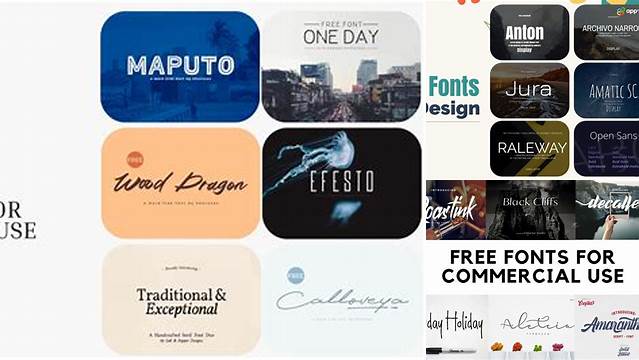
Free Commercial Fonts: Top Picks For Your Projects
Hey guys! Finding the perfect font can be a game-changer for any project, whether it's branding, web design, or print materials. But let's be real, high-quality fonts can be expensive! That's why I've put together a list of amazing free commercial fonts you can use without breaking the bank. These fonts are not only free but also come with licenses that allow you to use them in your commercial projects. Let's dive in and find the perfect typeface for your next venture!
Top Sans-Serif Free Commercial Fonts
Sans-serif fonts are clean, modern, and versatile, making them a popular choice for many projects. Some top free commercial fonts in this category include Roboto, Open Sans, and Lato. Roboto is a classic sans-serif that's highly readable and works well in a variety of applications. Open Sans is another excellent choice, known for its neutral yet friendly appearance. Lato is a slightly warmer sans-serif that adds a touch of personality to your designs. These fonts are all available on Google Fonts and are licensed for commercial use, so you can confidently incorporate them into your projects. When selecting a sans-serif font, consider the overall tone and style you want to convey. A more geometric sans-serif like Montserrat can give a very different impression compared to a humanist sans-serif like Open Sans. Think about where the font will be used—a font that works well for body text might not be the best choice for a headline. Experiment with different weights and styles to find the perfect fit for your specific needs. These free commercial fonts offer a fantastic starting point for any design project, providing flexibility and readability without costing you a penny. Choosing the right sans-serif can significantly enhance the overall aesthetic and impact of your work, so take your time and explore your options.
Best Serif Free Commercial Fonts
Serif fonts have a more traditional and elegant feel, making them great for projects that need a touch of sophistication. Some outstanding free commercial fonts in the serif category include Playfair Display, Merriweather, and Arvo. Playfair Display is a beautiful font that's perfect for headlines and titles. Merriweather is a highly readable serif that works well for body text. Arvo is a slab-serif font that has a strong and distinctive look. Like the sans-serif options, these fonts are also available on Google Fonts with commercial licenses. When using serif fonts, pay attention to the line height and letter spacing to ensure optimal readability. Serif fonts often require a bit more tweaking than sans-serif fonts to look their best, especially in digital applications. Consider the historical context of the font and how it aligns with the overall theme of your project. A classic serif like Garamond might be perfect for a project that evokes a sense of tradition, while a more contemporary serif like Roboto Serif could be a better fit for a modern design. These free commercial fonts can bring a touch of class and sophistication to your designs, making them an excellent choice for projects that need a polished and refined appearance. Don't be afraid to experiment with different combinations and weights to find the perfect serif font that complements your overall design.
Monospace Free Commercial Fonts
Monospace fonts, where each character occupies the same horizontal space, are often used in coding, technical documentation, and retro designs. Some great free commercial fonts in this style include Fira Code, Source Code Pro, and Roboto Mono. Fira Code is particularly popular among developers because it includes ligatures that make code more readable. Source Code Pro, designed by Adobe, is another excellent option known for its clarity and legibility. Roboto Mono provides a clean and modern take on the monospace style. These fonts are all freely available and licensed for commercial use. When choosing a monospace font, legibility is paramount, especially if it will be used for reading code or technical information. Look for fonts with clear distinctions between similar characters like '1', 'l', and 'I'. Consider the overall aesthetic and how it fits with the tone of your project. Monospace fonts can evoke a sense of precision and technical expertise, making them a great choice for certain applications. While they might not be suitable for all design projects, these free commercial fonts can add a unique and distinctive touch when used appropriately. Whether you're creating a coding tutorial, designing a terminal-inspired interface, or simply want to add a retro vibe, monospace fonts offer a versatile and interesting option.
Display Free Commercial Fonts
Display fonts are designed to catch the eye and make a statement, often used for headlines, logos, and posters. Finding good free commercial fonts in this category can be a bit trickier, but there are still some excellent options. Oswald is a popular choice for headlines and banners, with its bold and condensed design. Montserrat is another versatile option that can work well as a display font, especially in its heavier weights. Bebas Neue is a clean and modern sans-serif that's perfect for creating a strong visual impact. When using display fonts, remember that less is often more. These fonts are meant to be used sparingly to draw attention and create emphasis. Pair them with a more neutral font for body text to ensure readability. Consider the overall message and tone you want to convey and choose a display font that aligns with that. A playful and whimsical font might be perfect for a children's book, while a bold and impactful font could be better suited for a marketing campaign. These free commercial fonts offer a great way to add personality and visual interest to your designs without spending a fortune. Experiment with different styles and combinations to find the perfect display font that makes your project stand out.
Script & Handwritten Free Commercial Fonts
Script and handwritten fonts can add a personal and artistic touch to your projects, but finding free commercial fonts that are both high-quality and legible can be challenging. Some options to explore include Great Vibes, Dancing Script, and Permanent Marker. Great Vibes is an elegant script font that's perfect for invitations and special occasions. Dancing Script is a more casual and playful option that adds a touch of personality. Permanent Marker mimics the look of a handwritten marker, giving your designs a raw and authentic feel. When using script and handwritten fonts, readability is key. Avoid using them for large blocks of text, as they can be difficult to read. Instead, use them sparingly for headings, quotes, and other short pieces of text. Consider the overall tone and style of your project and choose a font that aligns with that. A formal script font might be perfect for a wedding invitation, while a more casual handwritten font could be better suited for a blog post. These free commercial fonts offer a great way to add a personal and artistic touch to your designs, making them feel more unique and engaging. Be sure to test them out in different sizes and contexts to ensure they remain legible and visually appealing.
Tips for Choosing the Right Free Commercial Font
Choosing the right free commercial font involves more than just picking one that looks nice. Consider the purpose of your project, your target audience, and the overall tone you want to convey. Think about readability, especially for body text, and ensure the font works well in different sizes and formats. Also, pay attention to the font's personality and how it aligns with your brand or message. Don't be afraid to experiment with different fonts and combinations to find the perfect fit. It can also be helpful to create a mood board or style guide to ensure consistency across your design. Additionally, always test the font on different devices and browsers to ensure it renders correctly. A font that looks great on your computer might not look the same on a mobile device or in a different browser. These free commercial fonts are valuable assets, but their effectiveness depends on how well they align with your project's goals and design principles. By considering these factors, you can make informed decisions and select fonts that enhance the overall impact and readability of your work. Remember, the right font can elevate your design and make it more engaging and effective.
Advanced Tips and Tricks for Working with Free Commercial Fonts
Once you've mastered the basics of using free commercial fonts, you can explore some advanced tips and tricks to elevate your designs even further. Experiment with different font weights and styles to create visual hierarchy and emphasis. Use kerning and tracking to fine-tune the spacing between letters and create a more polished look. Use OpenType features like ligatures and stylistic alternates to add character and personality to your designs. Create custom font pairings to create a unique and memorable visual identity. Use font editing software to modify fonts and create custom variations. These free commercial fonts can be powerful tools for creating stunning and effective designs, but it's important to master the art of typography and explore the many possibilities they offer. By continuously learning and experimenting, you can develop your skills and create designs that stand out from the crowd. These advanced tips and tricks can help you unlock the full potential of free commercial fonts and take your designs to the next level.